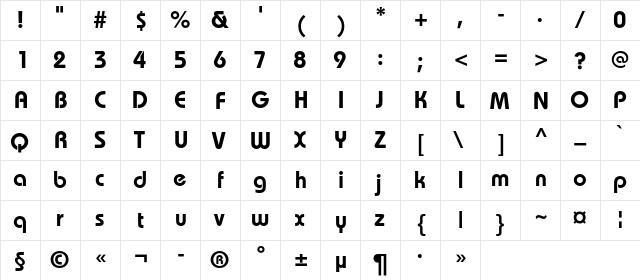
BauhausDemiC Regular
Design Context for BauhausDemiC Typeface
BauhausDemiC takes a measured approach to typography — its balanced proportions and neutral character make it a reliable workhorse for both digital and print work.